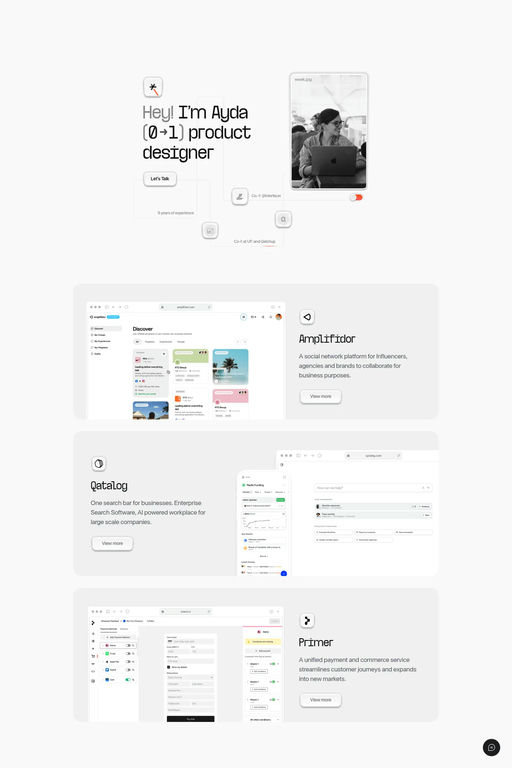
Trafika is an experimental monospace with a contemporary approach. The name comes from the little shops located in Prishtinë which are called "Trafika". They were built quite some time ago, the oldest even during the Yugoslavian era.